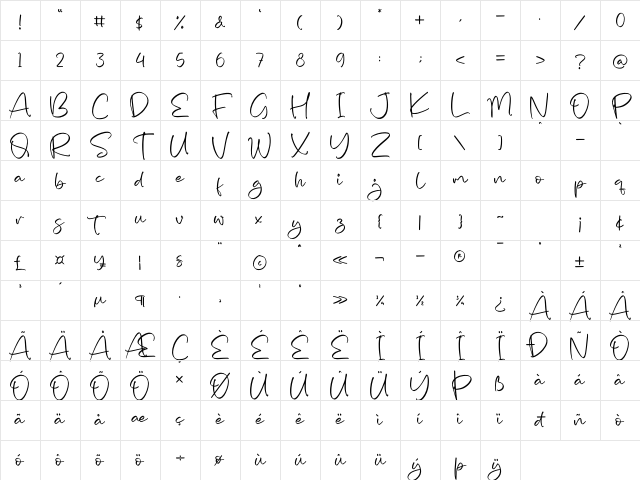
Emillea Mooneta Regular Free Font
Emillea Mooneta Regular
Foundry: Integritype Studio
Designer: Nanang Jamaludin
Design Context for Emillea Mooneta
Emillea Mooneta is a composed and adaptable typeface that performs quietly and consistently across a wide range of design contexts.